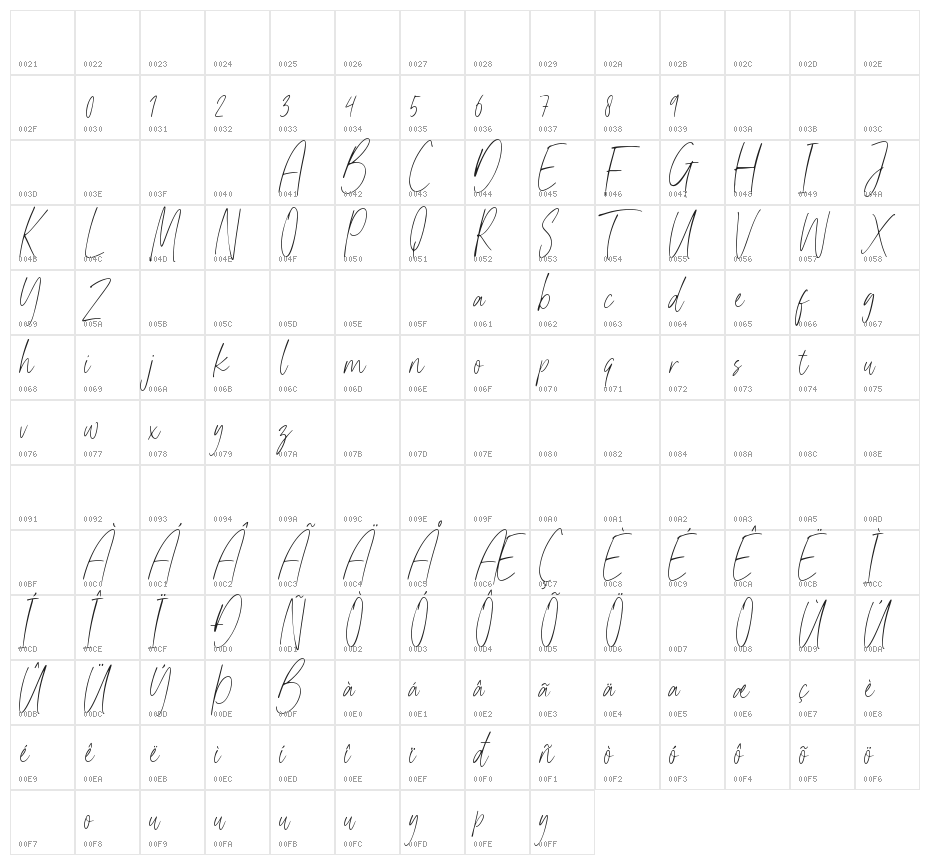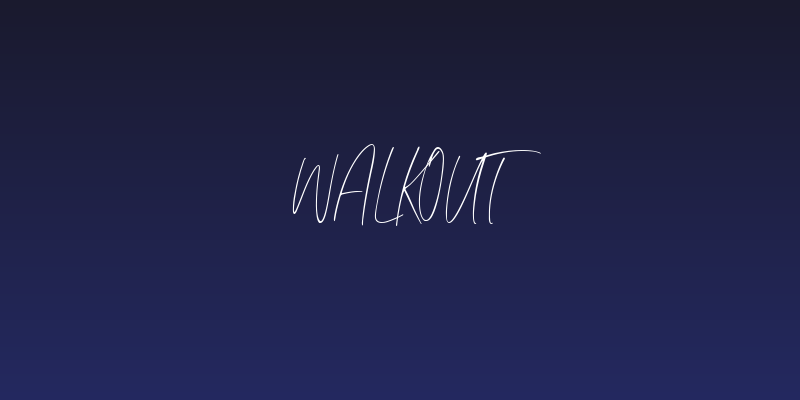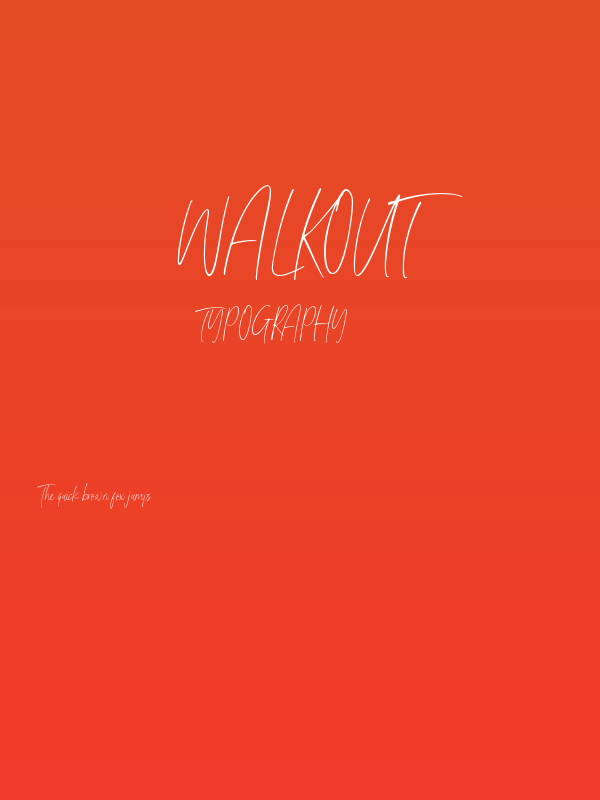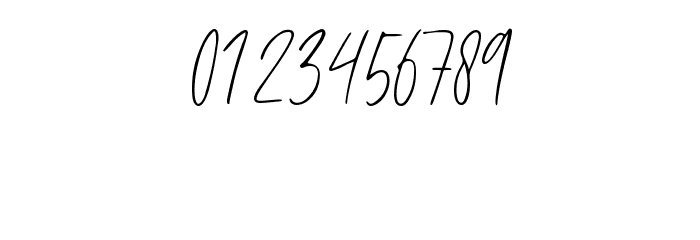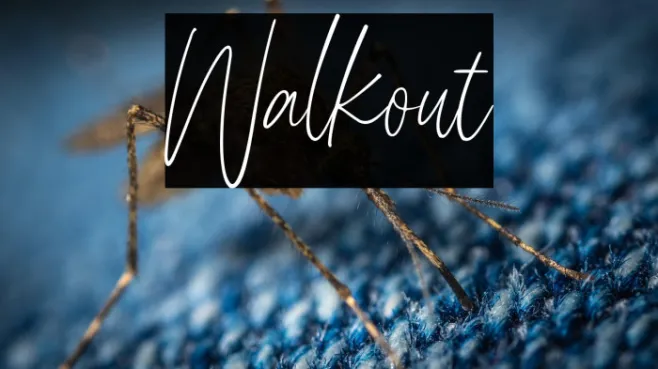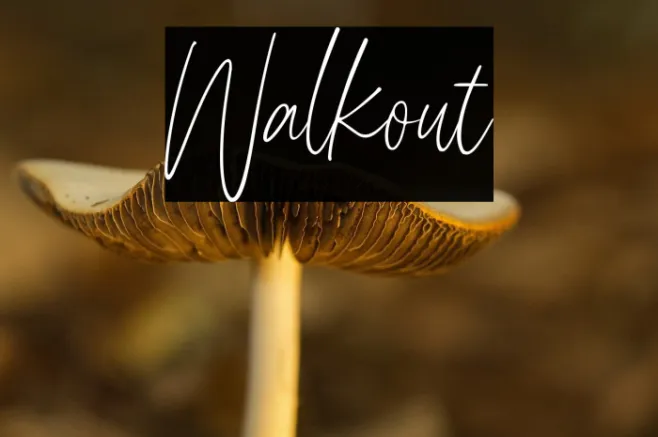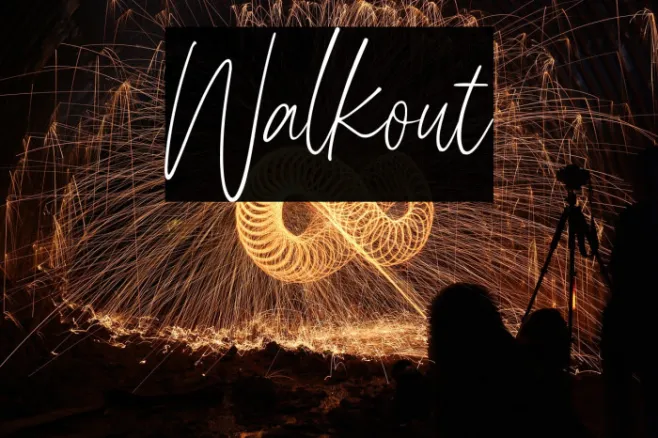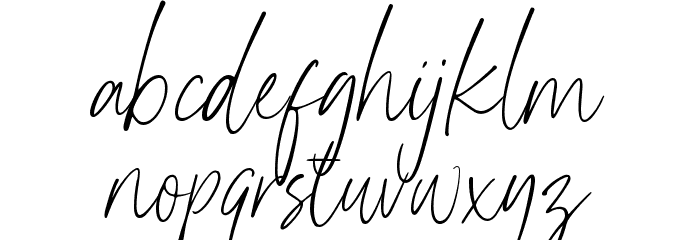
Walkout Font
Walkout Description
This font exudes a casual, handwritten style with a modern twist. The uppercase letters are tall and slender, with a slight slant that adds a dynamic feel. The lowercase letters are more fluid and connected, resembling a natural cursive handwriting. The numbers maintain the same slender and slightly slanted style, ensuring consistency throughout. The special characters are crafted with the same attention to detail, fitting seamlessly with the rest of the font. Overall, this font combines elegance with a touch of informality, making it versatile for various design needs.
| Use Case | Logos, Invitations, Social Media |
| Proposed Projects | Ideal for wedding invitations, personal branding, social media graphics, and creative projects that require a personal touch. |